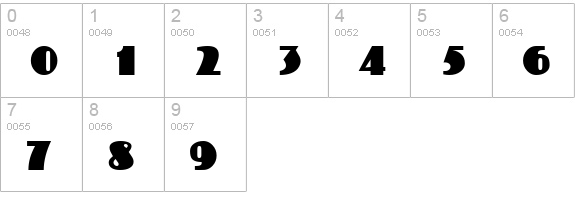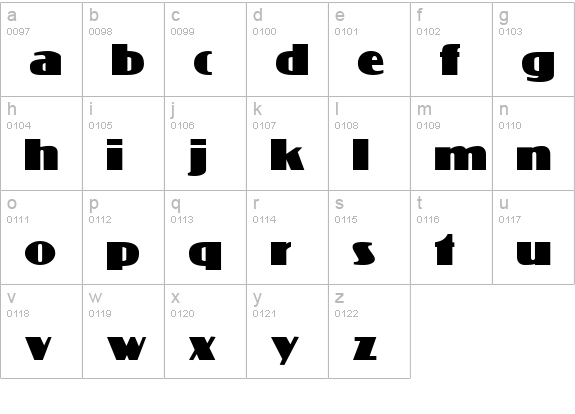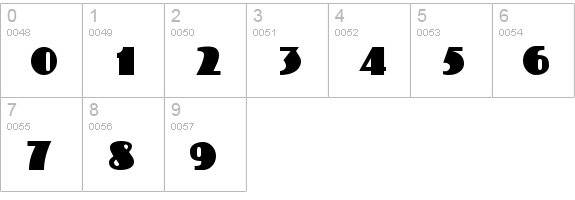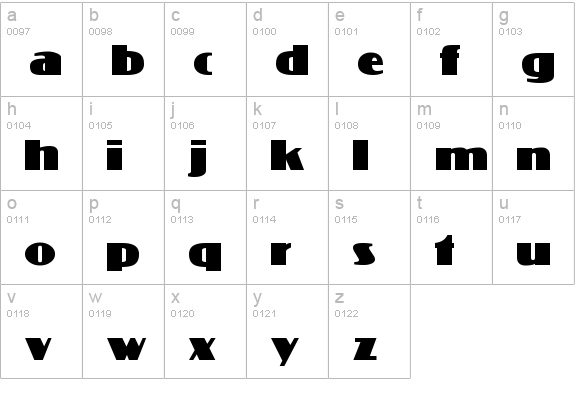
Coliseum Normal Font Details
Coliseum Normal is the standard, neutral variant in the Coliseum typeface family \xE2\x80\x94 well suited to general body text, paragraphs, and standard typographic work.
Coliseum Normal font is a classic and versatile typeface that exudes elegance and sophistication. With its timeless design and clean lines, this font is perfect for a wide range of projects, from branding to editorial design. The sleek and modern look of Coliseum Normal will add a touch of refinement to any text or headline. Best of all, Coliseum Normal font is available for free download at FontsMarket.com. This means you can easily access this high-quality font without any cost, making it a valuable asset for your design toolkit. Whether you're working on a professional project or a personal creative endeavor, Coliseum Normal font is sure to elevate your work with its effortless style and readability. Download it today and see the difference it can make in your designs!